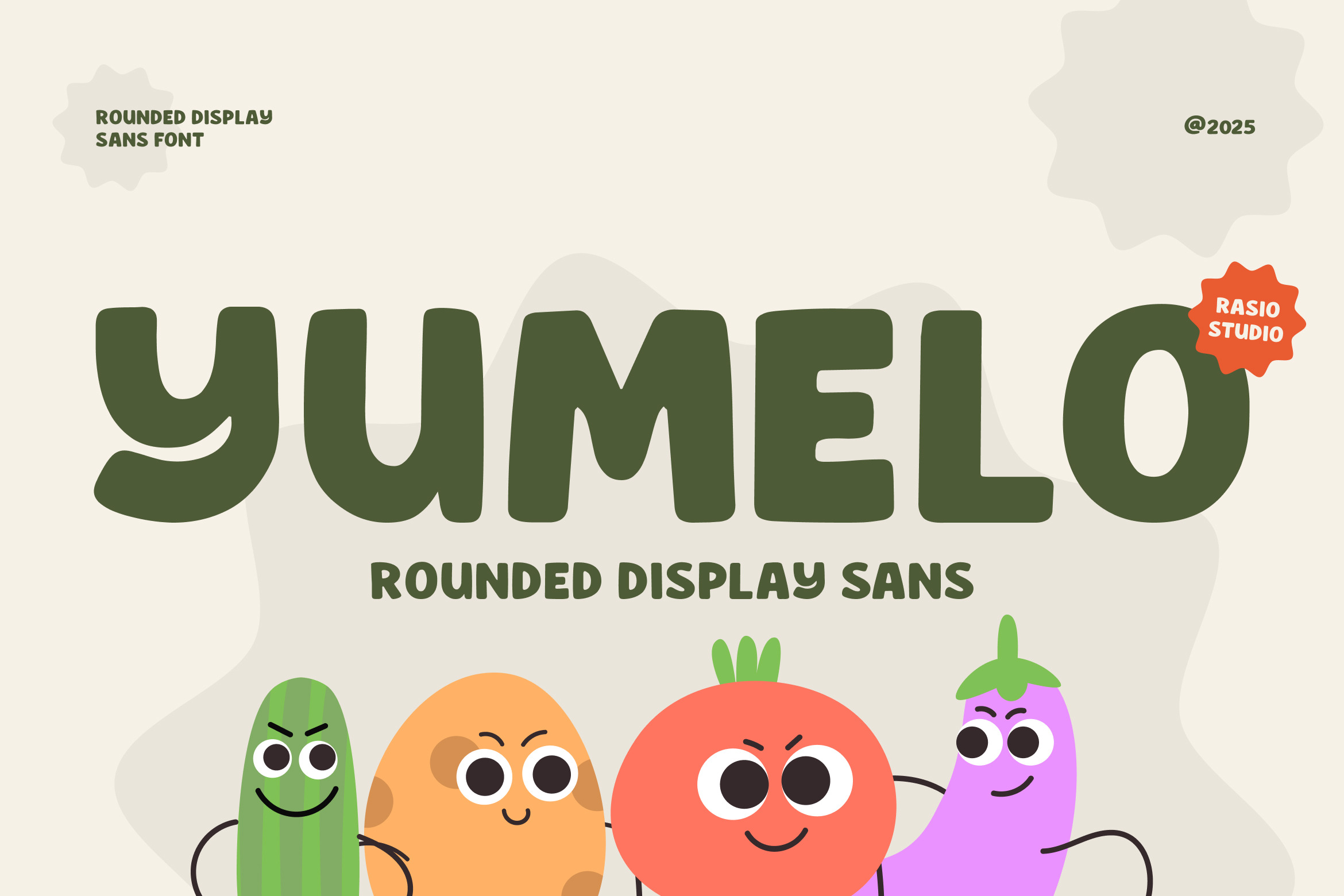
Yumelo Rounded Sans Typeface Font
Yumelo is a cheerful and chunky rounded display sans font that brings friendliness and fun to your designs. With bold curves and soft terminals, this typeface is ideal for playful branding, children’s books, food packaging, or any project needing a touch of joy. Yumelo includes uppercase letters, numbers, and full punctuation support, crafted with clean vector quality and optimized for print and digital use.
Yumelo’s bubbly character and smooth curves make it perfect for creative projects targeting children, food products, and fun brands. Whether you're designing logos for organic snacks, headlines for kids’ storybooks, or colorful packaging, Yumelo adds an approachable and lighthearted touch that draws attention without losing legibility.
- Bold rounded sans with soft, friendly geometric construction
- Playful proportions with exaggerated curves for visual charm
- Thick strokes and smooth terminals to enhance legibility
- Balanced baseline and rhythm for clean visual flow
- Optimized spacing for eye-catching headlines and logos
- Kids’ product packaging, toy branding, and educational materials
- Food and snack labels, especially organic or plant-based products
- Fun and engaging social media graphics or YouTube thumbnails
- Event posters, party invitations, and playful merchandise
- App and game UI with a friendly, casual tone
Add a splash of fun, Yumelo makes every word feel friendly and full of life!